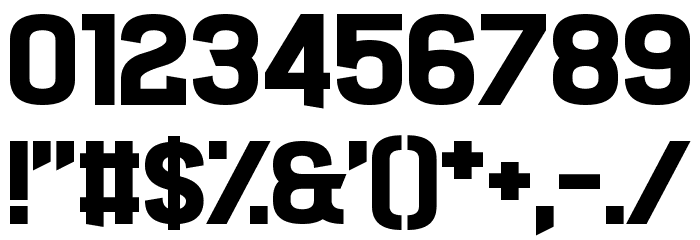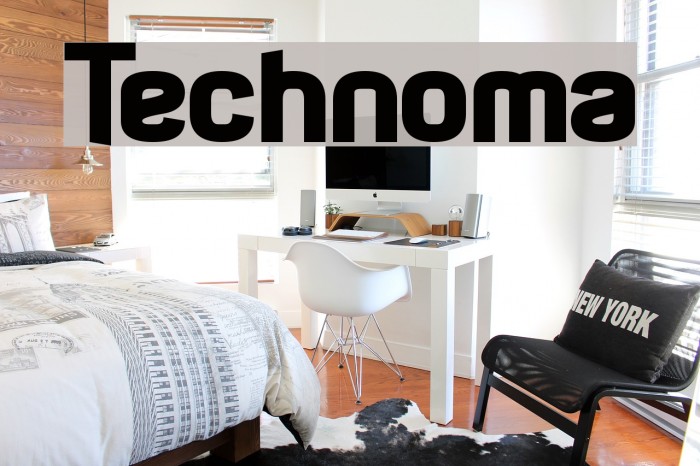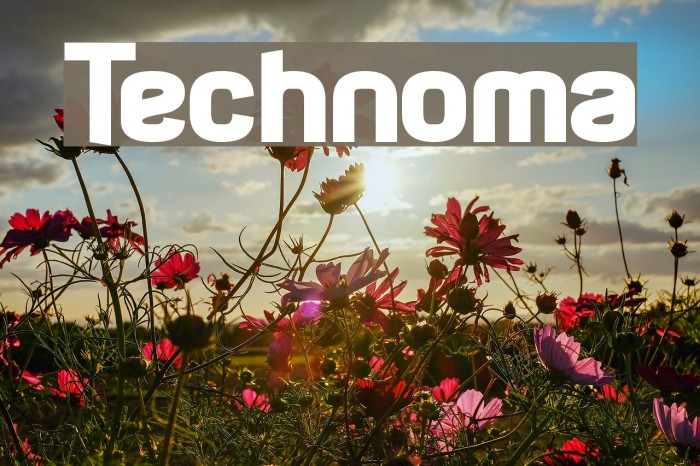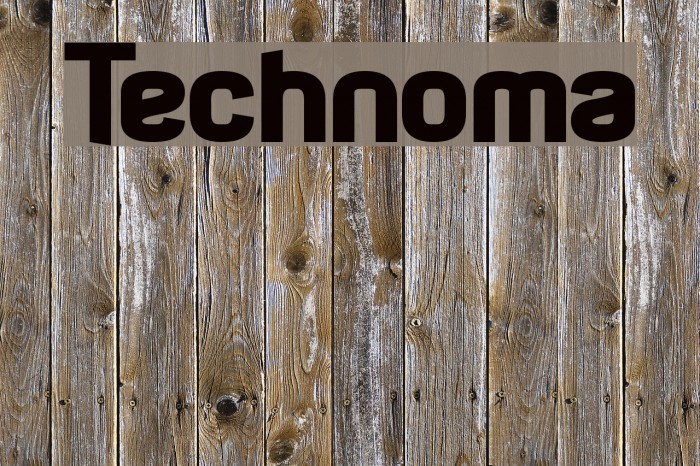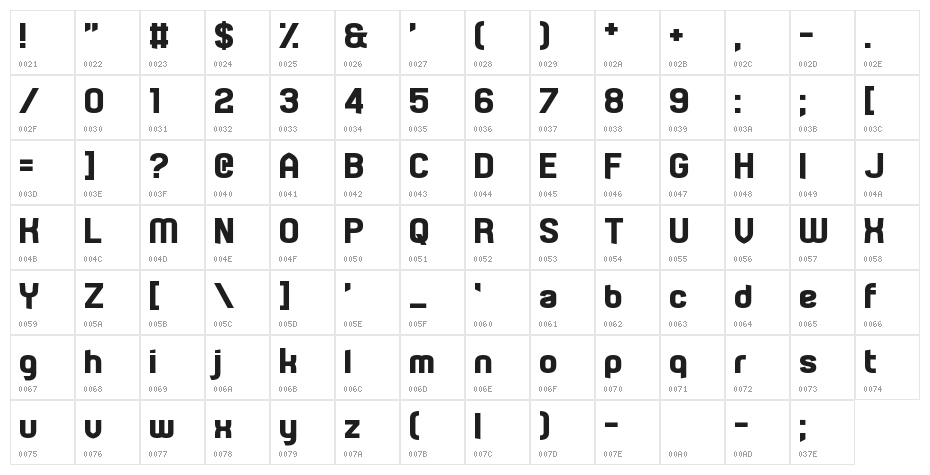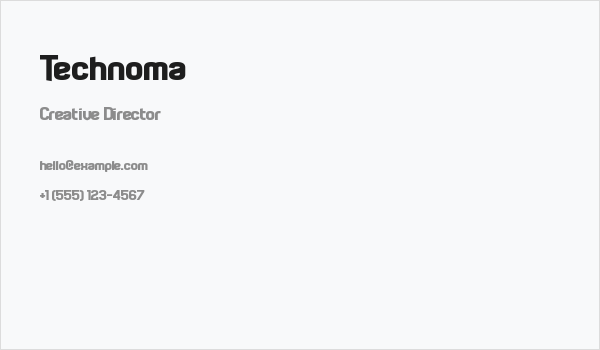
Technoma Font
This font features a bold, modern design with a strong geometric structure. The characters are uniformly thick, providing a consistent and powerful visual impact. The uppercase and lowercase letters maintain a cohesive style, with rounded edges that soften the overall appearance. The numerals are clear and legible, matching the boldness of the alphabet. Special characters are distinct and maintain the font's robust aesthetic. This typeface is ideal for projects that require a contemporary and assertive look.
A bold, modern font with a strong geometric structure and rounded edges.
- Proposed Projects: Ideal for technology branding, modern advertising, and digital media projects.
- Use Case: Headlines, Logos, Digital Media